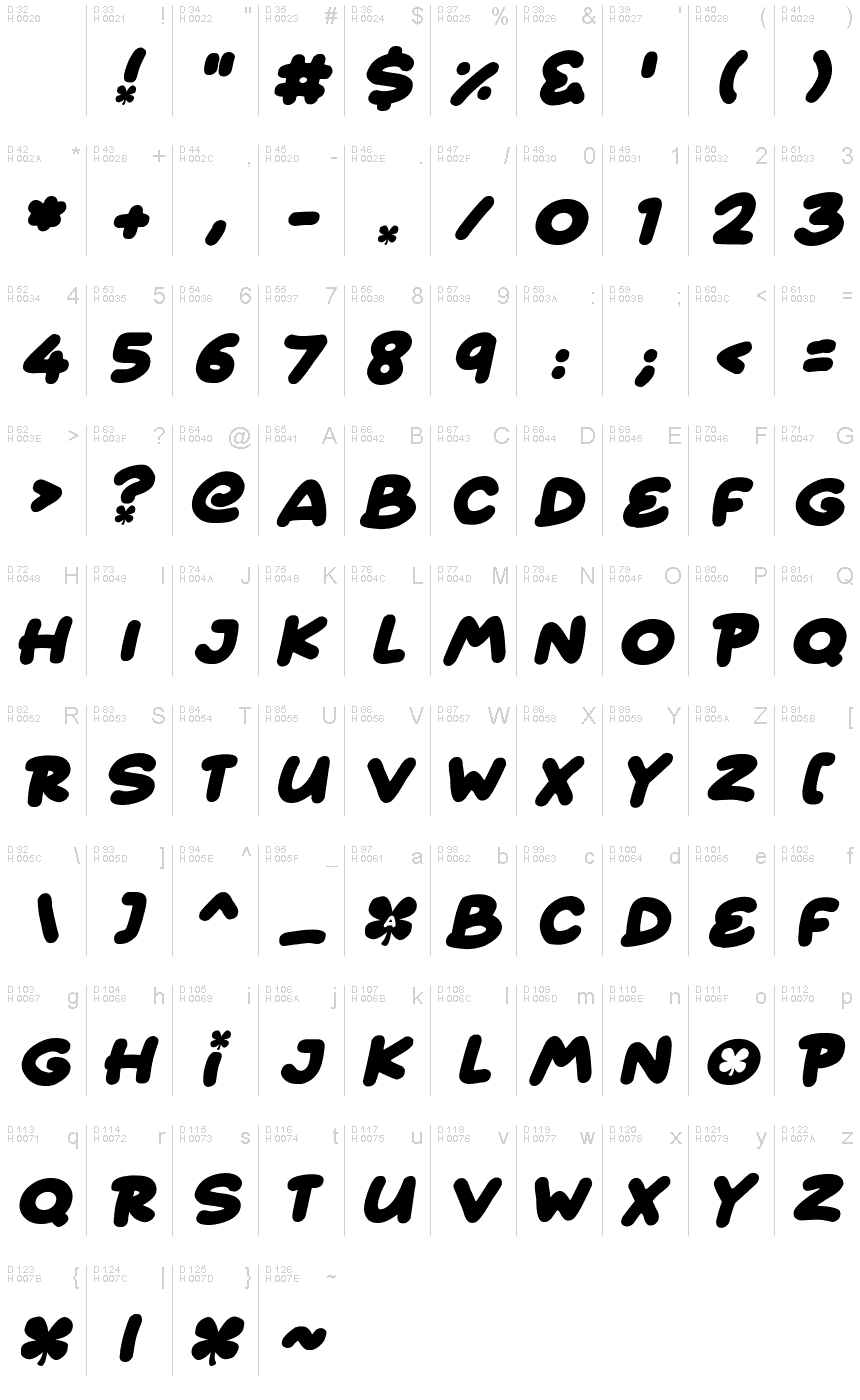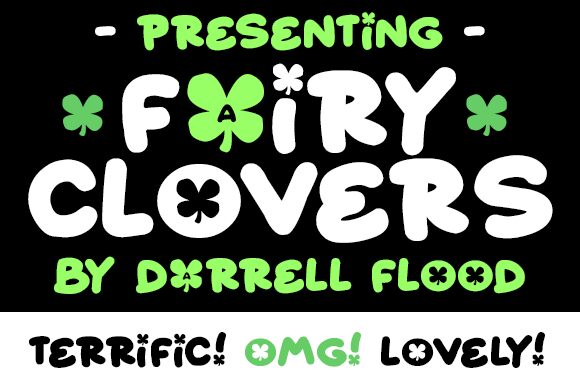
Fairy Clovers Italic
Meet Fairy Clovers Italic, the whimsical display font designed by Darrell Flood. With its extra-bold weight and semi-expanded width, this cartoonish typeface is perfect for playful projects that need a touch of magic. Use it to create eye-catching headlines, posters, or social media graphics that will make your audience smile. Whether you’re designing for children’s books, greeting cards, or even food packaging, Fairy Clovers Italic is sure to add a sprinkle of enchantment to your work. Let this font weave its spell and take your designs on a fairy tale adventure!